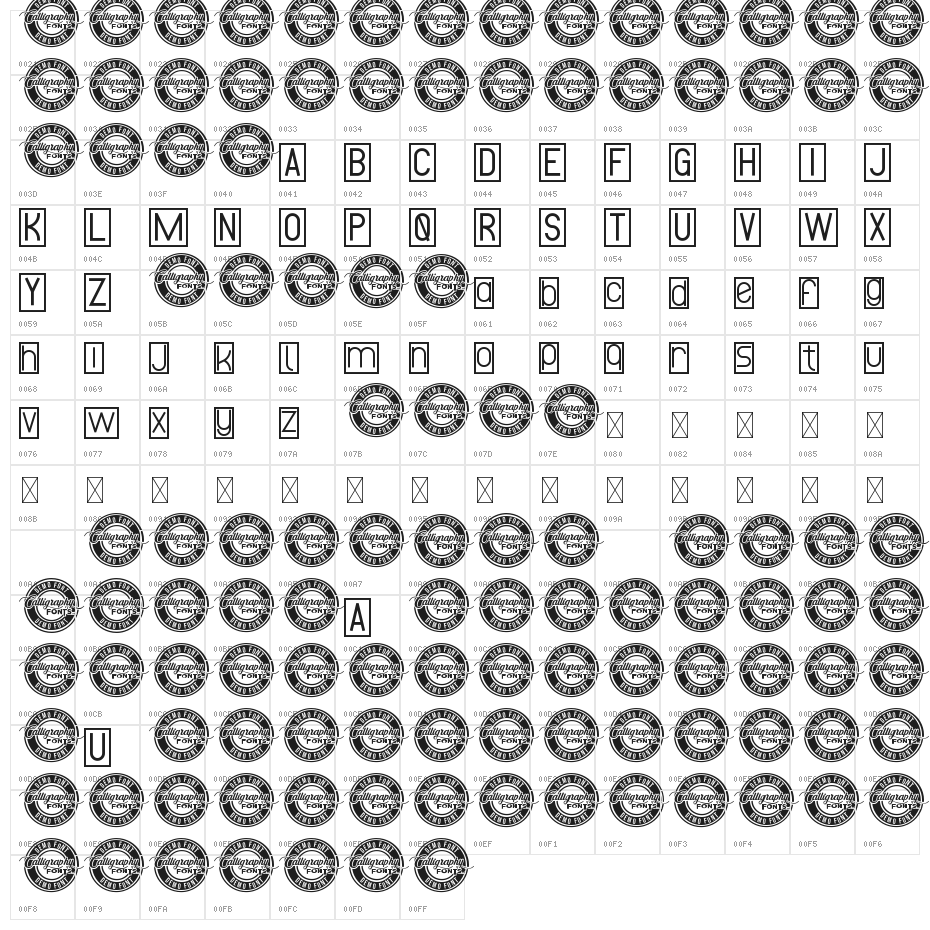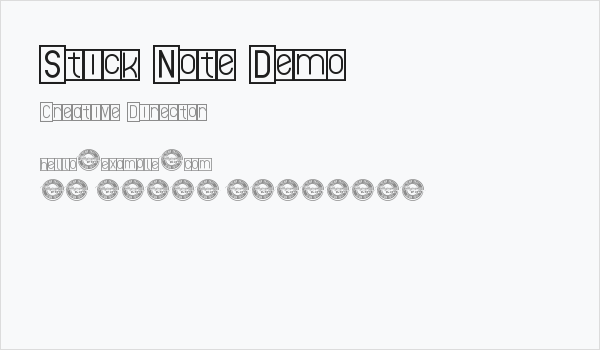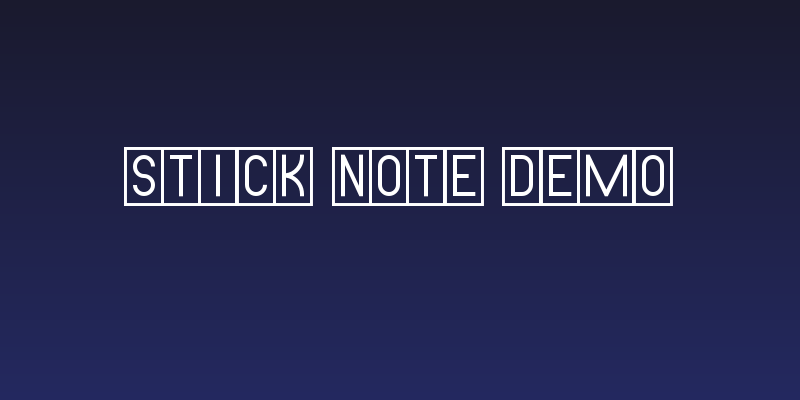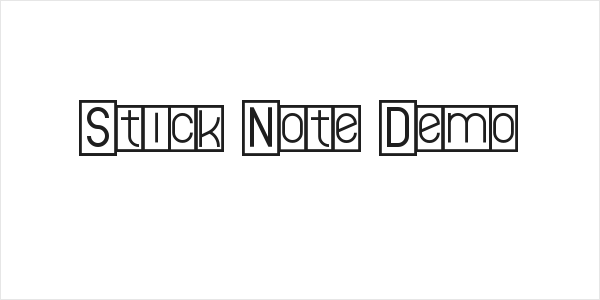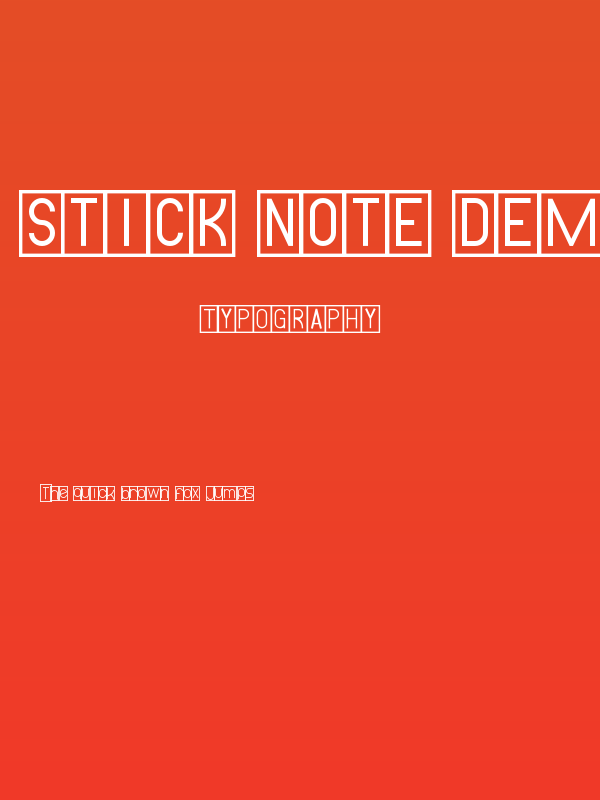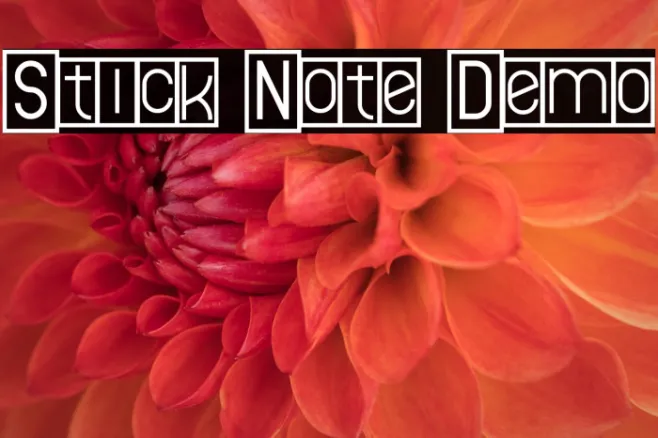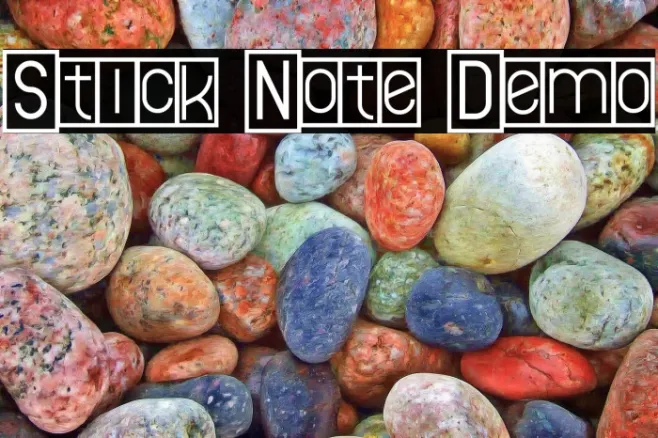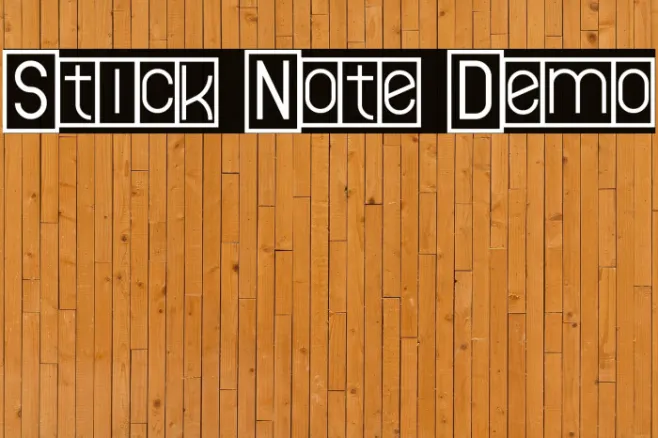
Stick Note Demo Font
Stick Note Demo Description
This font features a unique and modern design with each character enclosed within a square frame, creating a structured and geometric appearance. The uppercase and lowercase letters maintain a consistent height, emphasizing uniformity and balance. The strokes are bold and consistent, providing a strong visual impact. The design is clean and minimalistic, making it suitable for contemporary projects that require a distinct and eye-catching typeface. The font's geometric nature gives it a futuristic feel, while the enclosed characters add a touch of sophistication.
| Proposed Projects | Ideal for branding, posters, digital media, and any project requiring a modern and structured aesthetic. |